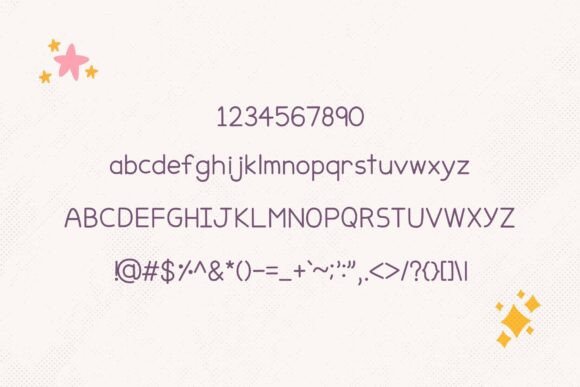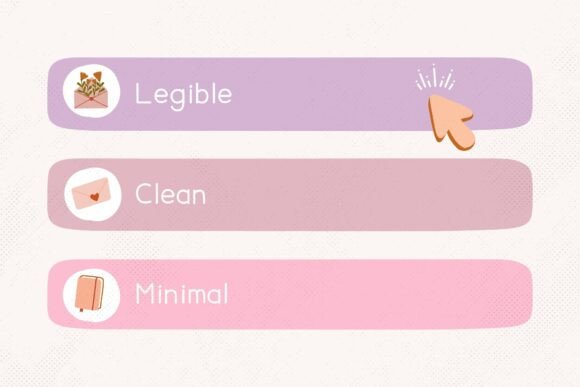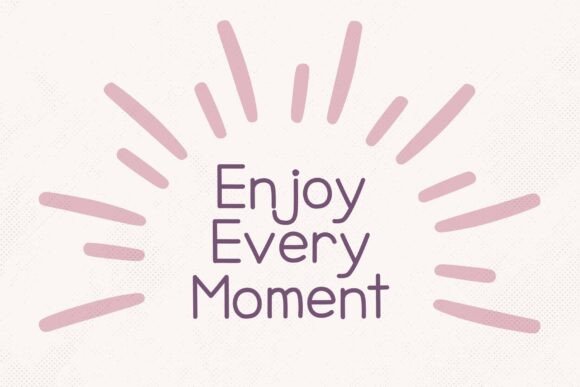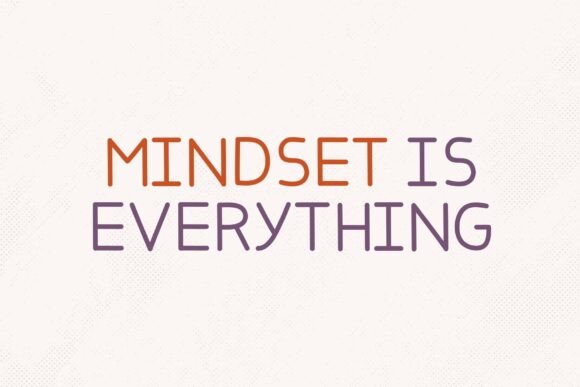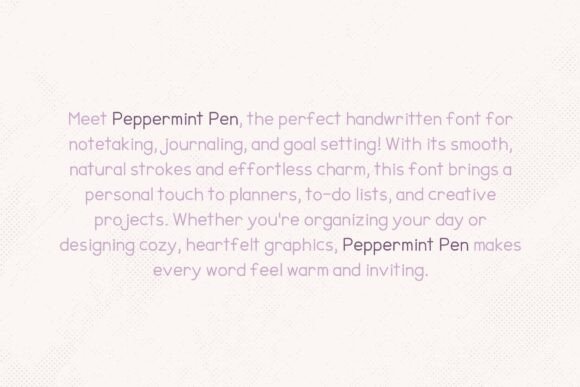
Introduction to Peppermint Pen Font Font
Fonts play a crucial role in design, and the Peppermint Pen Font font is a typeface that brings both character and versatility to any project. Whether you’re working on a branding project, a website, or a print design, the Peppermint Pen Font font offers a unique style that can elevate your work.
Meet Peppermint Pen, the perfect handwritten font for notetaking, journaling, and goal setting.
With its smooth, natural strokes and effortless charm, this font brings a personal touch to planners, to-do lists, and creative projects Whether youβre organizing your day or designing cozy, heartfelt graphics, Peppermint Pen makes every word feel warm and inviting.
Key Features of Peppermint Pen Font Font
Why Choose Peppermint Pen Font Font?
The Peppermint Pen Font font is more than just a typeface β it’s a design tool that helps you communicate your message with style and clarity. Its unique character set and versatile design make it suitable for a wide range of applications, from elegant invitations to bold headlines.
With its carefully crafted letterforms and balanced proportions, the Peppermint Pen Font font ensures readability and visual appeal across all mediums.
What makes Peppermint Pen Font font special?
The Peppermint Pen Font font stands out with its unique design, exceptional readability, and versatility across various design applications.